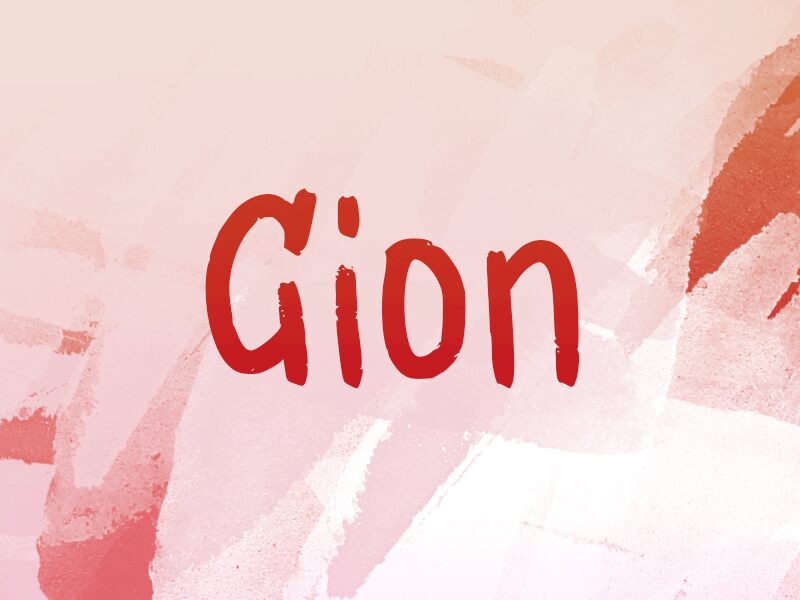
Gion
Gion, a captivating handwritten font crafted by wep, exudes a dynamic and expressive personality. This condensed typeface boasts a delightful fusion of organic brushstrokes and precise letterforms, creating a visually striking and versatile typographic solution. Gion's unique character resonates with a sense of warmth and authenticity, making it an alluring choice for designers seeking to infuse their projects with a touch of handcrafted charm.
The font's condensed width lends itself to a multitude of design applications, from eye-catching headlines and impactful branding to charming editorial layouts and engaging social media content. Gion's expressive qualities seamlessly adapt to a wide range of creative endeavors, allowing designers to elevate their work with a distinctive and memorable typographic presence.